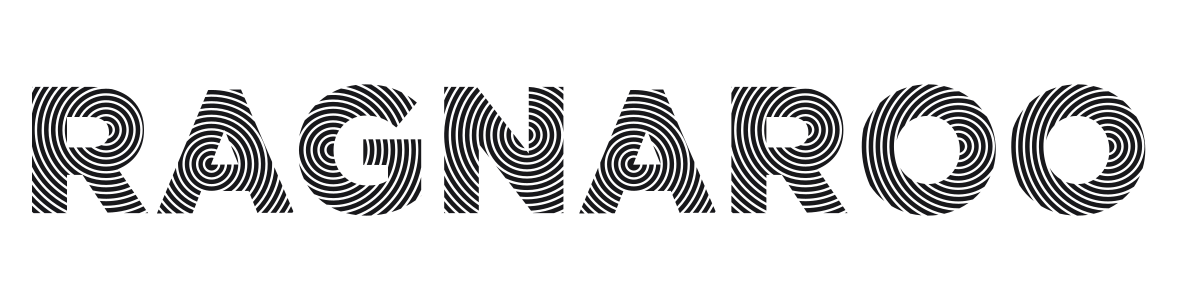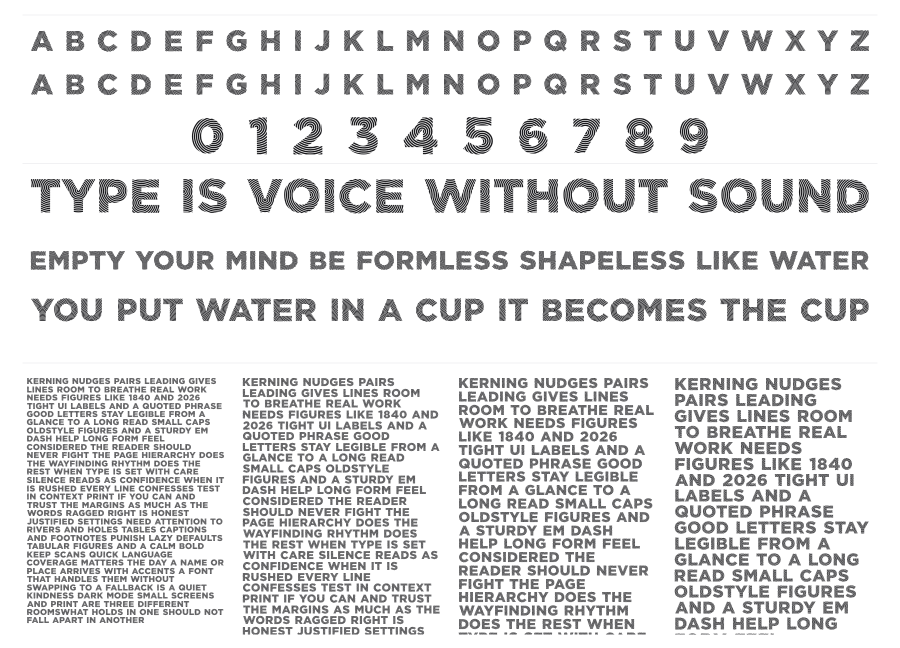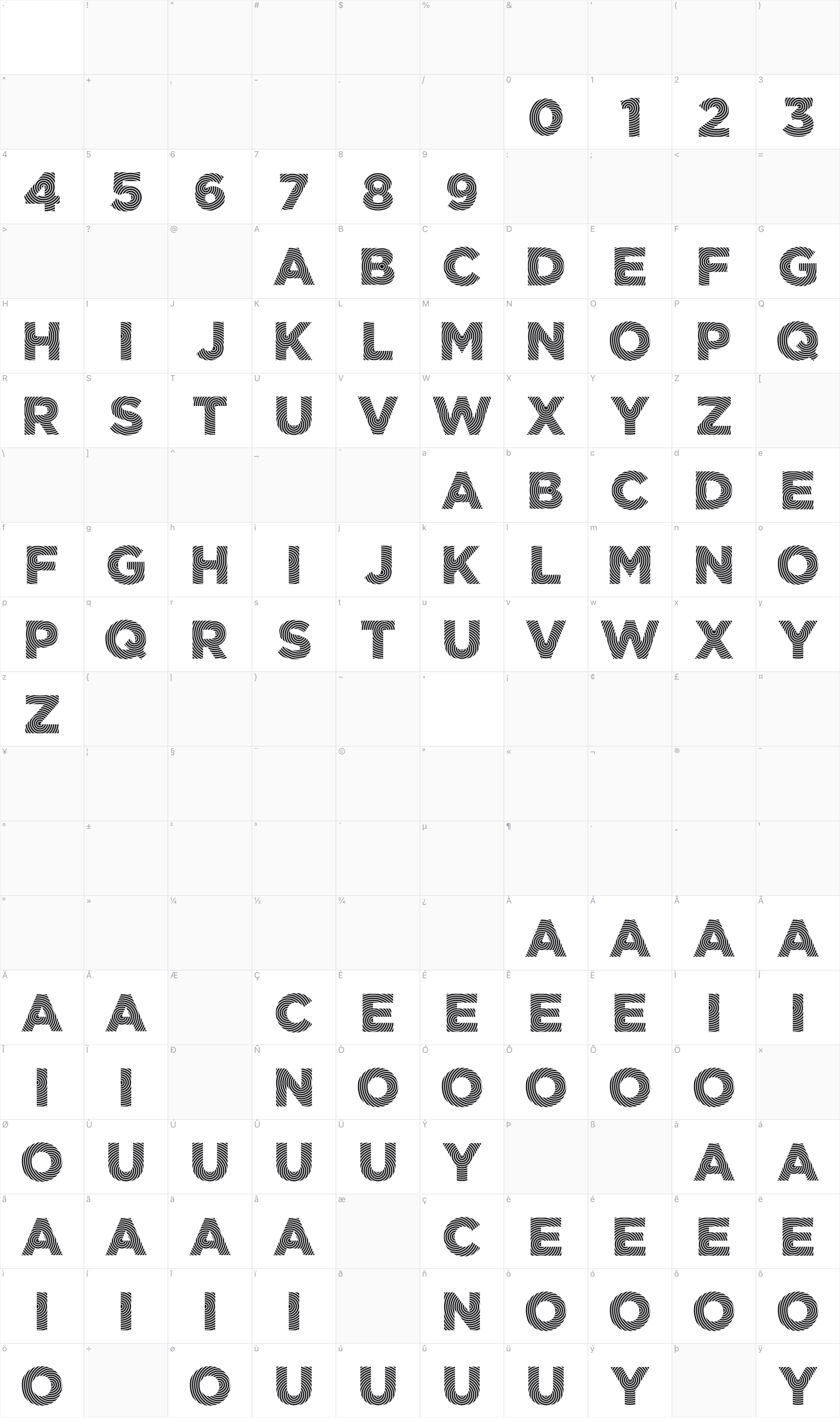
Ragnaroo
Ragnaroo is a heavy geometric display sans where every letter is filled with dense concentric horizontal stripes, producing a fingerprint or topographic contour effect. The optical texture makes letters vibrate on the page, giving it an unmistakable futuristic and slightly psychedelic energy. It commands attention at large sizes and suits posters, album covers, and any headline that needs to feel like it belongs to a different dimension.